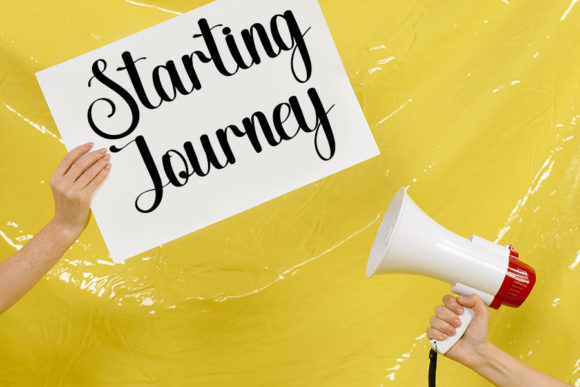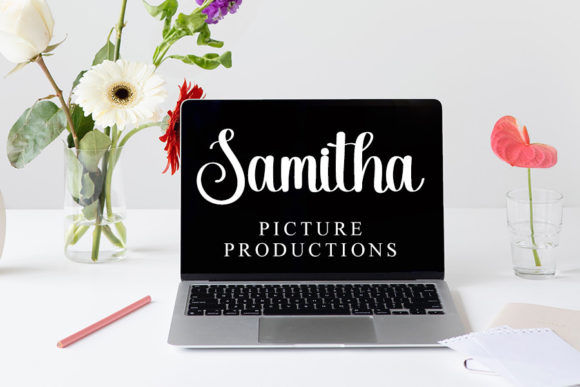
Sample Handmade Font
db-ku.com - Script & Handwritten -- Sample Handmade is a trendy handwritten font with a contemporary atmosphere and impeccable form, inspired by a timeless classic calligraphy. It will add elegance and class to any of your design projects. This font can be used to write various kinds of products according to the aspect of each need.